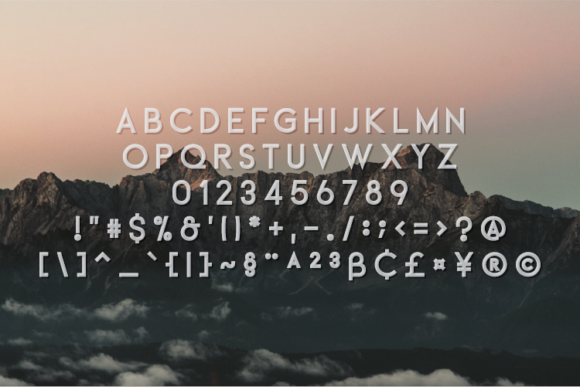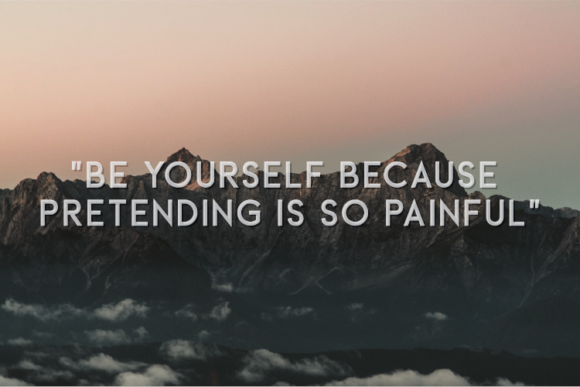
Copeland Font: Elevate Your Designs with a Simple yet Striking Sans Serif
In the world of typography, fonts play a pivotal role in conveying messages, evoking emotions, and enhancing the aesthetic appeal of designs. Among the myriad of fonts available, the Copeland Font stands out for its simplicity, neatness, and versatility. This sans serif font is a gem for designers and crafters looking to add a touch of elegance and modernity to their projects. In this article, we’ll delve into the characteristics of the Copeland Font, its uses, and why it has become a go-to choice for creatives.
The Essence of Copeland Font
Copeland is described as a simple and neat sans serif font. Its clean lines and uncomplicated structure make it an incredibly versatile typeface. The beauty of sans serif fonts lies in their ability to convey a sense of modernity and sleekness, and Copeland is no exception. Its straightforward design ensures that it remains legible across various platforms and sizes, making it perfect for a wide range of applications.
One of the key advantages of the Copeland Font is its adaptability. It can easily be matched to an incredibly large set of projects, from digital content such as websites and social media graphics to print materials like brochures, posters, and business cards. Whether you’re working on a minimalist design or something more elaborate, Copeland can seamlessly integrate and elevate your creative ideas.
Why Choose Copeland Font?
- Simplicity: In an era where designs can quickly become cluttered, Copeland offers a refreshing simplicity that ensures your message is the focal point.
- Legibility: The neat and clean design of Copeland guarantees high legibility, making it ideal for both digital and print media.
- Versatility: Its ability to fit into various design contexts makes Copeland a valuable addition to any designer’s toolkit.
- Modern Appeal: The sans serif design gives Copeland a contemporary look that can make your designs stand out in a crowded space.
Using Copeland Font in Your Projects
Adding Copeland to your creative projects is straightforward. Here are a few tips on how to make the most of it:
- Pair it with Other Fonts: While Copeland is versatile on its own, it can also be paired with other fonts to create interesting contrasts. Experiment with serif fonts for a classic look or other sans serifs for a more modern vibe.
- Experiment with Sizes: Don’t be afraid to play with different sizes to emphasize certain parts of your text. The clean design of Copeland ensures that it will look good in various sizes.
- Consider the Color: The simplicity of Copeland makes it a great canvas for experimenting with colors. Choose a color that aligns with your brand or design theme to make your text pop.
Copeland Font is more than just a simple sans serif typeface; it’s a powerful tool for designers and crafters looking to elevate their projects. Its neat design, versatility, and modern appeal make it an excellent choice for a wide range of applications. Whether you’re a professional designer or a DIY enthusiast, Copeland can help you create stunning designs that stand out. So, add it to your creative arsenal and notice how it transforms your ideas into visually appealing projects.
In the realm of typography, sometimes it’s the simple things that make the biggest impact. Copeland Font is a testament to the power of simplicity in design, proving that even the cleanest and most straightforward fonts can play a crucial role in creating memorable and engaging designs.